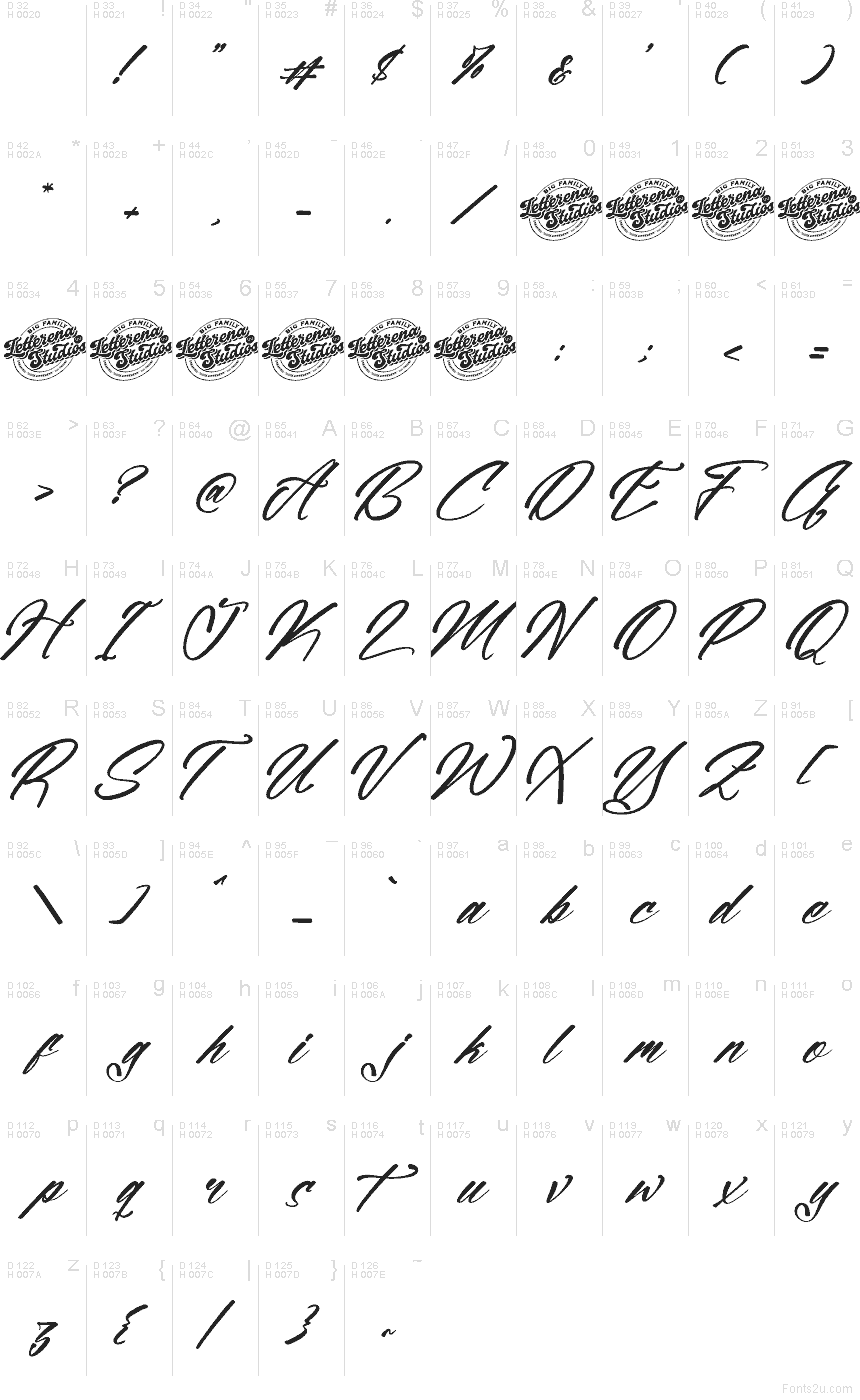
Erollitens Franklyn DEMO VERSIO Italic
Erollitens Franklyn Italic font by Heru Utama Putra of Letterena Studios is a free handwritten font in the Erollitens Franklyn family, written with swift, inky strokes and a confident rightward slant. Its tall, looping rhythm feels like a signature pulled in one breath—smooth, slightly dramatic, and clean enough to stay readable even with all that flourish.
Using Erollitens Franklyn Italic shines on wedding invitations, beauty or fashion logos, boutique branding, product packaging, quote graphics, social headers, and certificates. Set it a touch larger and give it some breathing room so the sweeps don’t tangle, then pair this free font with a quiet sans like Montserrat or Inter for the small text.